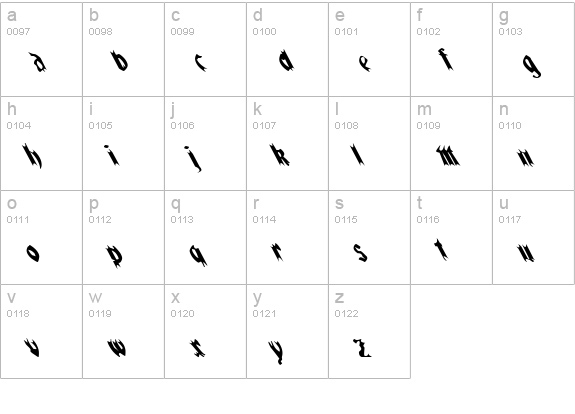
QuaelGothicLeftyCondensed Font Details
QuaelGothicLeftyCondensed is a breathtakingly unique font that brings a touch of elegance and sophistication to any design project. With its intricate and ornate letterforms, this font exudes a sense of mystery and intrigue, making it perfect for creating eye-catching headlines, logos, and posters. What sets QuaelGothicLeftyCondensed apart from other fonts is its distinct left-leaning slant, adding a dynamic and unconventional element to your typography. The condensed nature of this font allows for maximum impact in limited space, making it ideal for designs that require a sleek and streamlined look. But perhaps the best part is that QuaelGothicLeftyCondensed is completely free! Yes, you read that right. This stunning font is freely available to download at FontsMarket.com, ensuring that everyone has access to its beauty and versatility. Whether you're a graphic designer, a branding expert, or simply someone who appreciates the power of a well-crafted font, QuaelGothicLeftyCondensed is sure to captivate and inspire. Its intricate details and unconventional slant will make your designs stand out from the crowd, leaving a lasting impression on anyone who sees them. So why wait? Download QuaelGothicLeftyCondensed today and unleash your creativity with this remarkable font. Whether you're designing a logo for a high-end fashion brand or creating a poster for an avant-garde art exhibit, QuaelGothicLeftyCondensed is the perfect choice for making a bold statement. And the best part? It won't cost you a thing, thanks to its availability for free download at FontsMarket.com. Don't miss out on this opportunity to elevate your designs and leave a lasting impression.